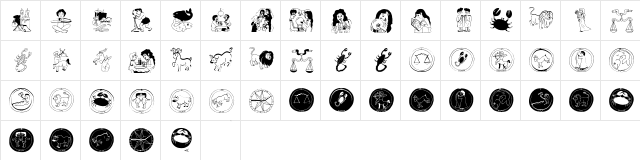
Horoscopish Regular
Design Context for Horoscopish Typeface
Horoscopish is a composed and adaptable typeface that performs quietly and consistently across a wide range of design contexts.